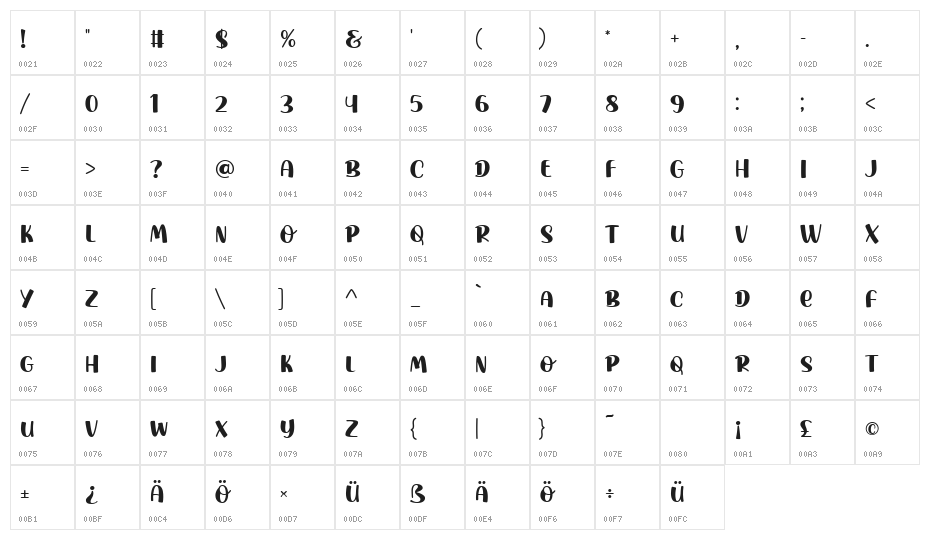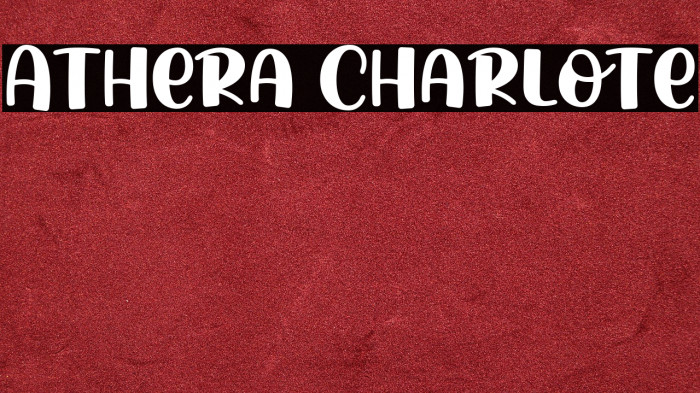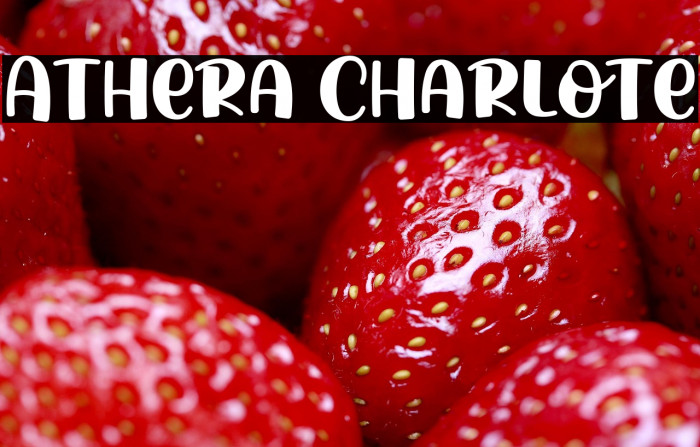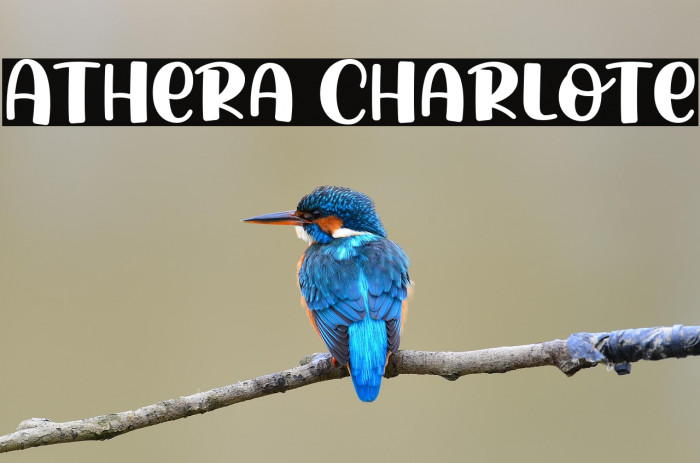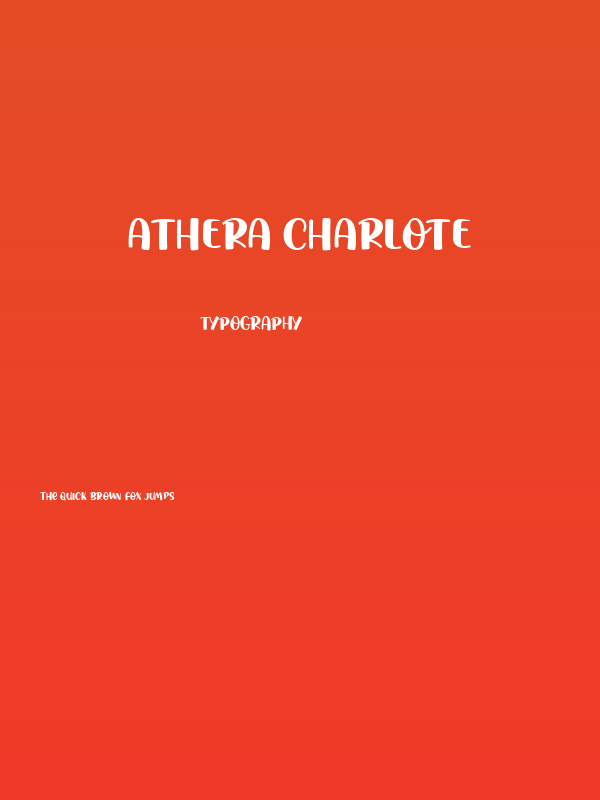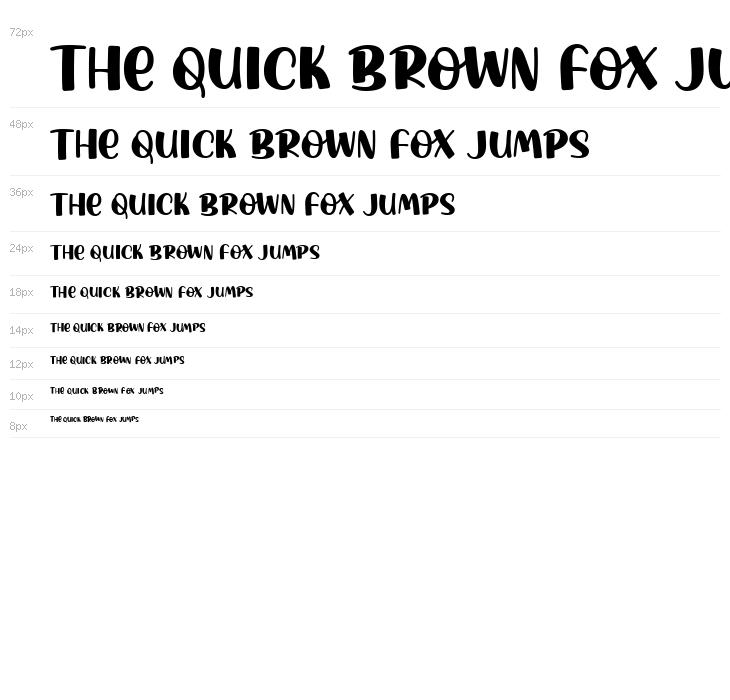
Athera Charlote Font
Athera Charlote Description
This font features a bold and playful style, characterized by its thick strokes and rounded edges. The letters have a whimsical, almost handwritten appearance, with a slight slant that adds to its dynamic feel. The uppercase and lowercase letters maintain a consistent style, with the uppercase being slightly more pronounced. The numbers and special characters are equally bold, ensuring readability and uniformity across all characters. This font exudes a sense of fun and creativity, making it suitable for projects that require a touch of personality and flair.
| Overall Style | Playful, Creative |
| Proposed Projects | Ideal for children's books, playful branding, creative posters, and social media graphics. |